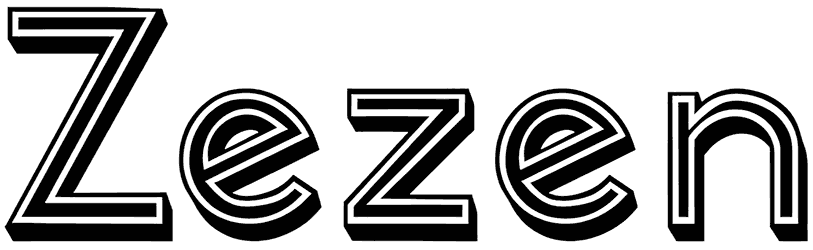
Zezen Font
Zezen is a striking sans-serif font with a 3D style that makes it ideal for standing out in a crowd. This shadow font is perfect for headlines and other prominent text thanks to its outlining.
It does not contain numerical letters, but it is still a distinct design that is sure to make an impression. Hit it to add a touch of modernity to your designs. It’s available for immediate use in your projects and can be uploaded from RB.